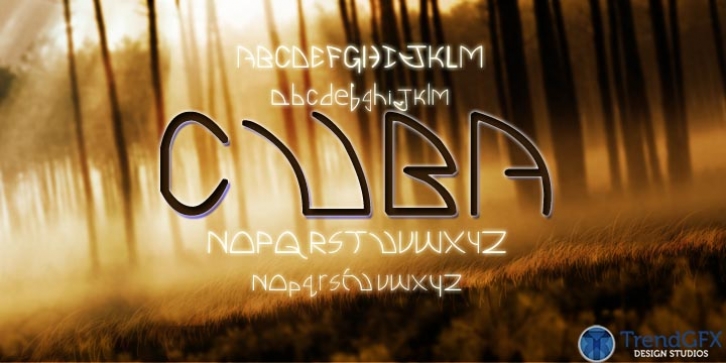
A Geometrical font. This idea flashed to me in one of the boring classes we had in college. Since its my special masterpiece we come really cheap at its price of just $8.